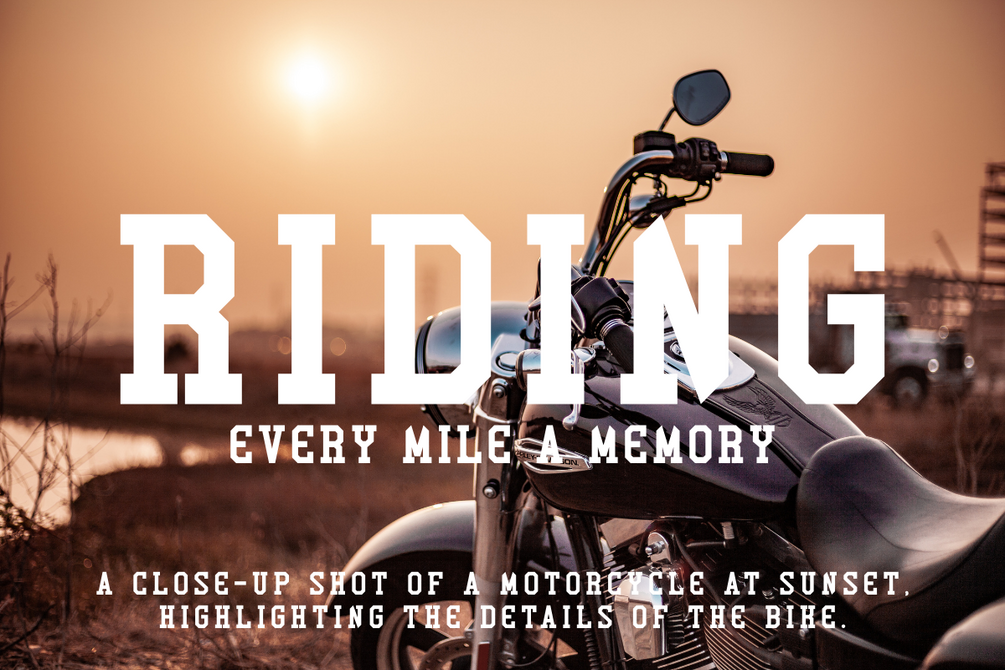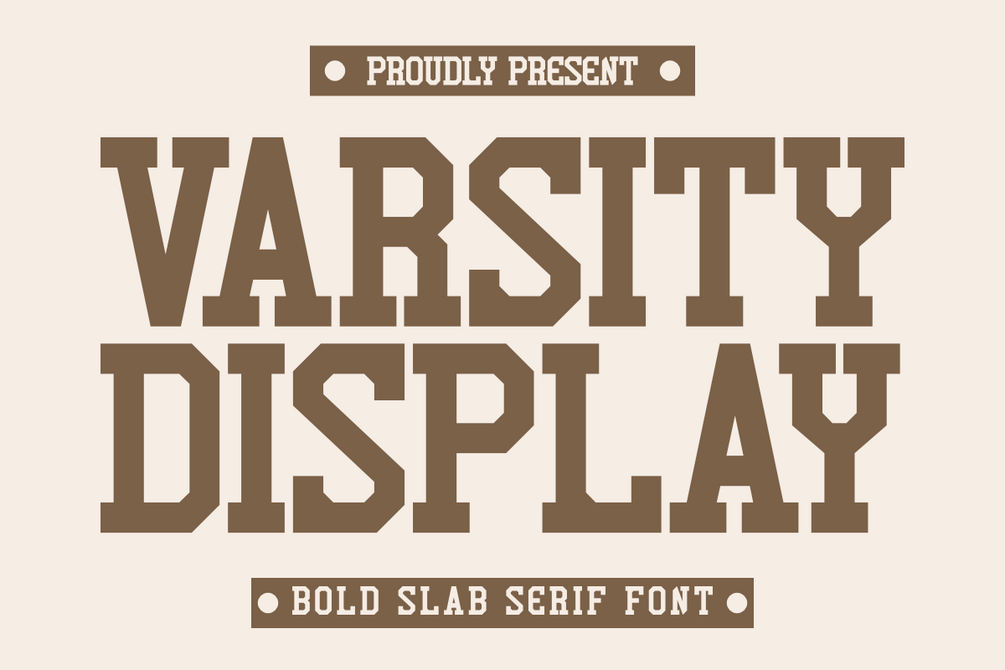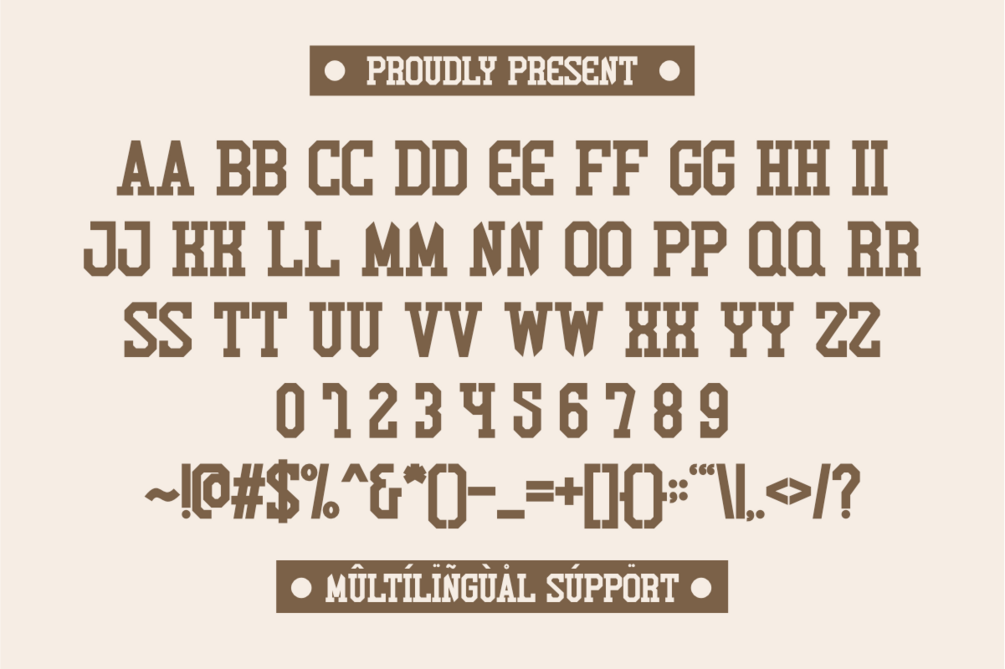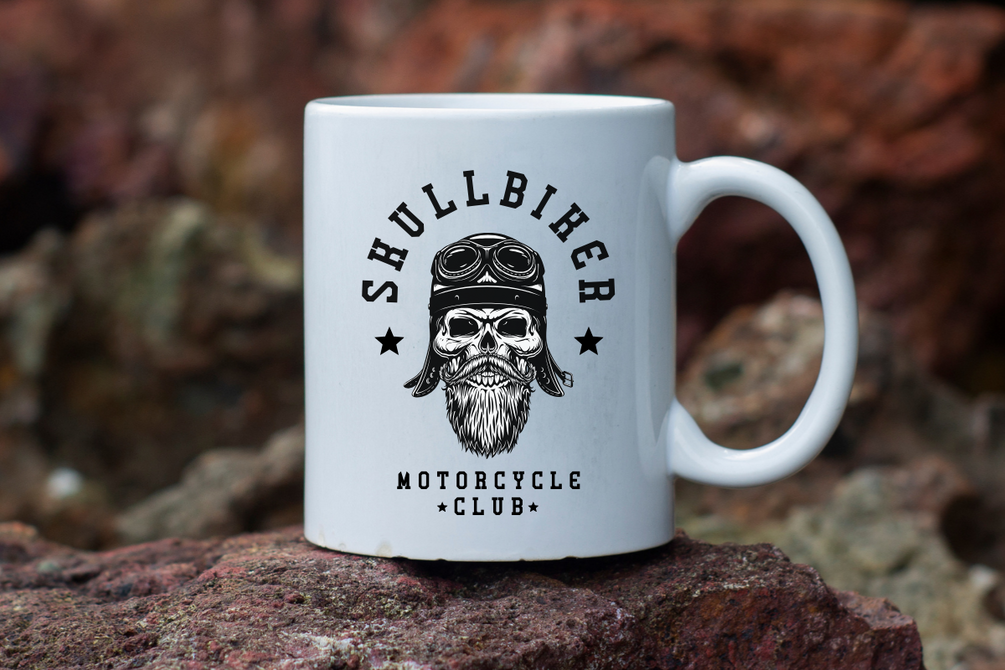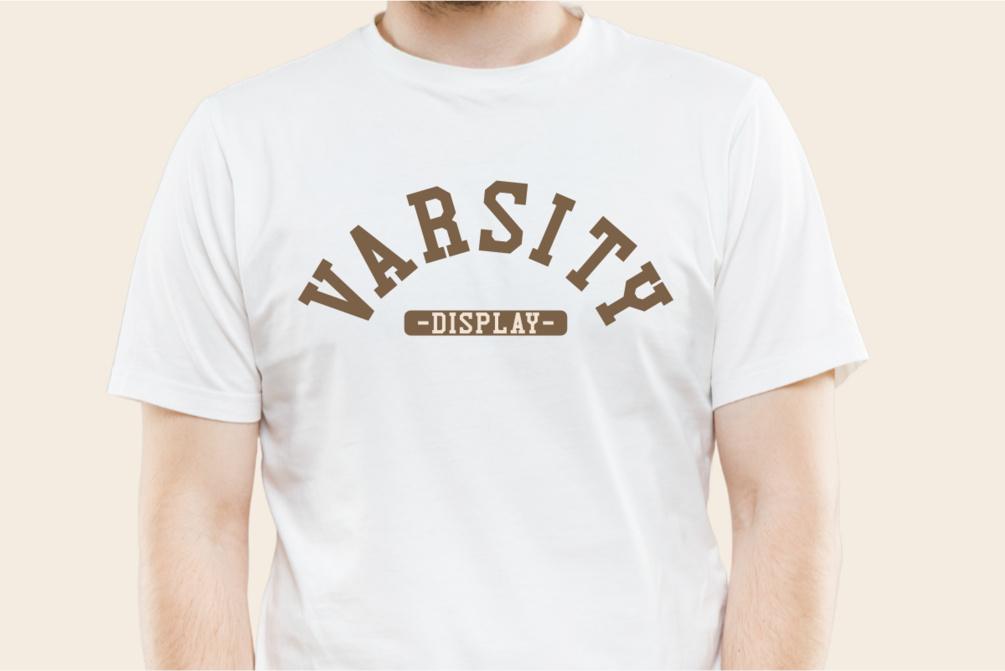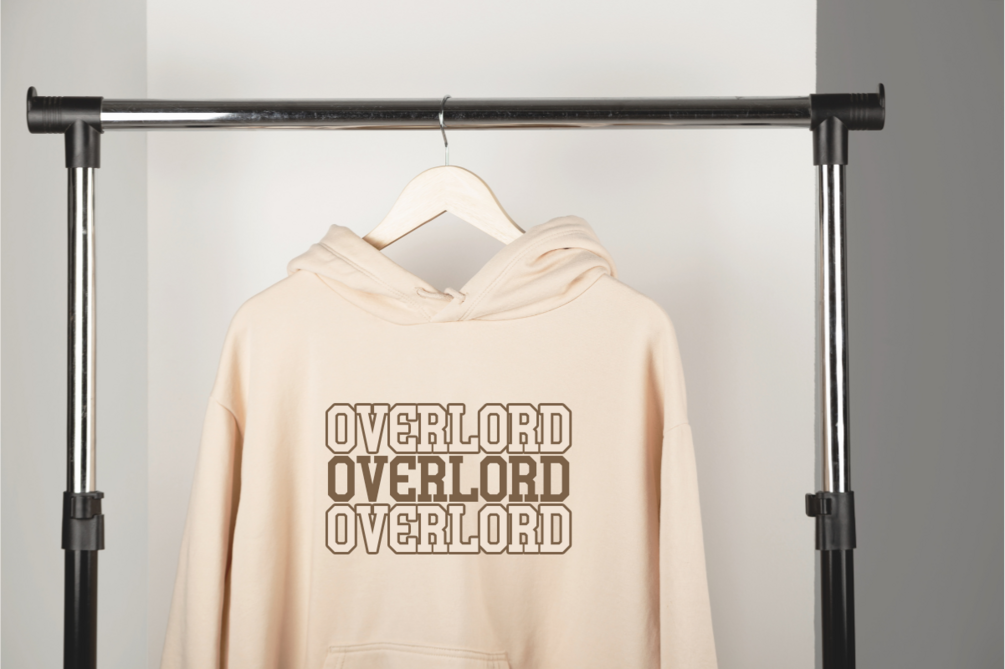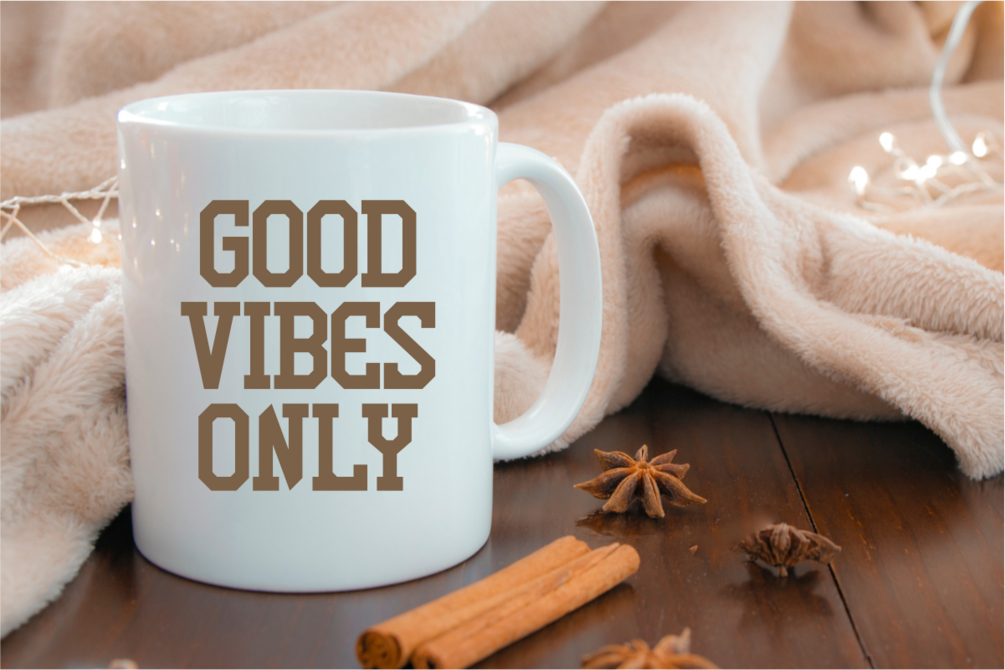
Varsity Display - Bold Slab Serif Font
Varsity Display – a condensed and modern slab serif font perfect for T-shirt designs, POD, DIY, and laser cuts. Featuring clean lines with bold and sports style, this font adds a fresh, elegant touch to your creative projects. Ideal for crafting, branding, and more